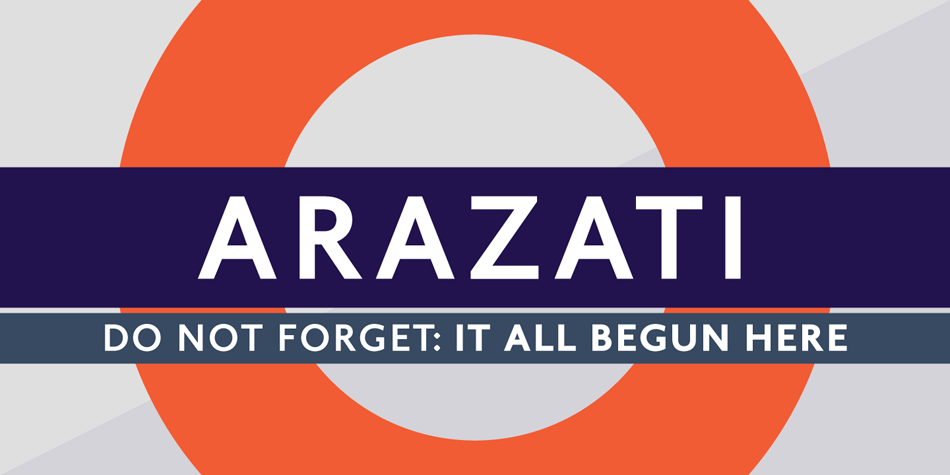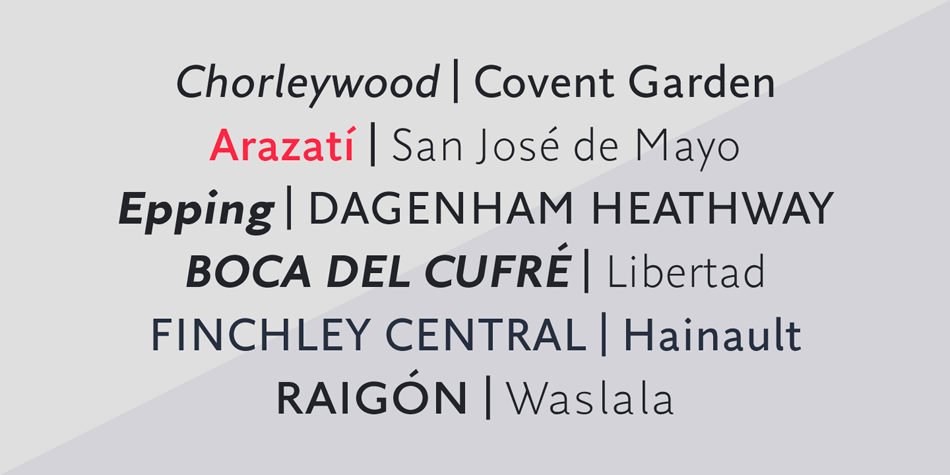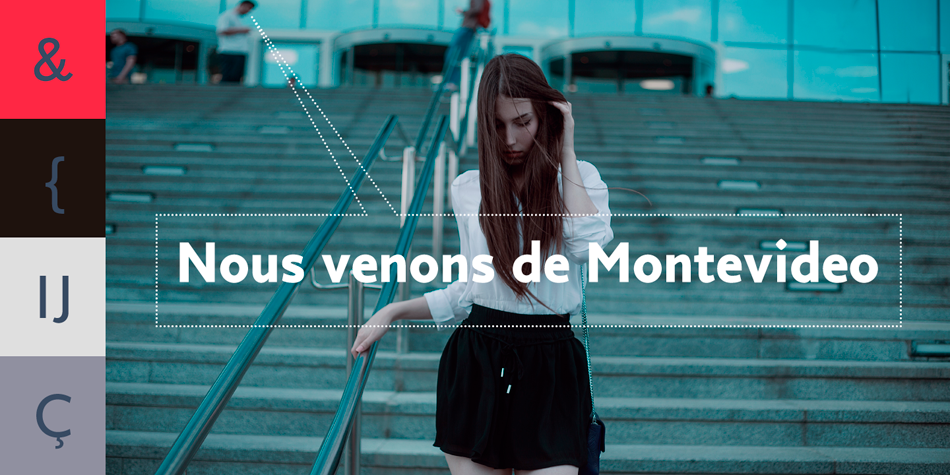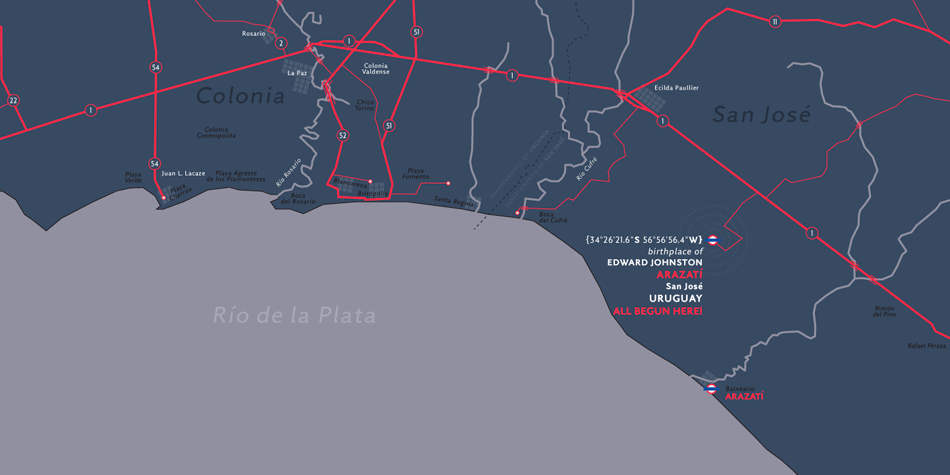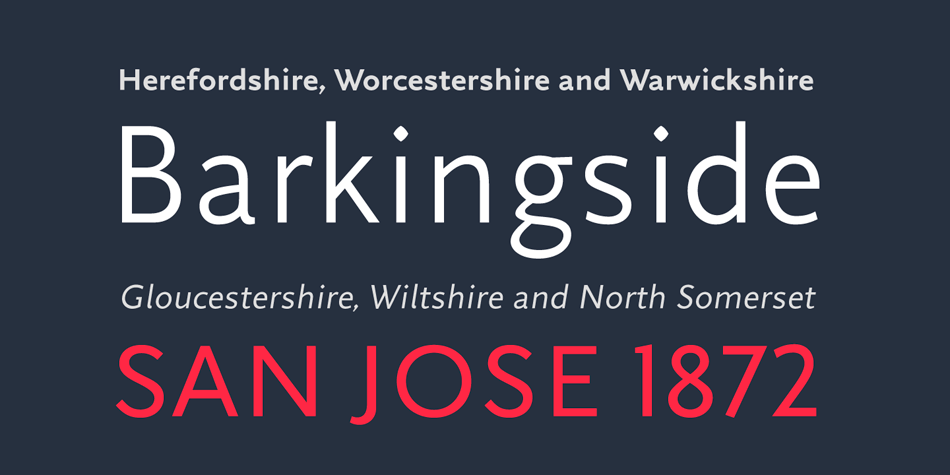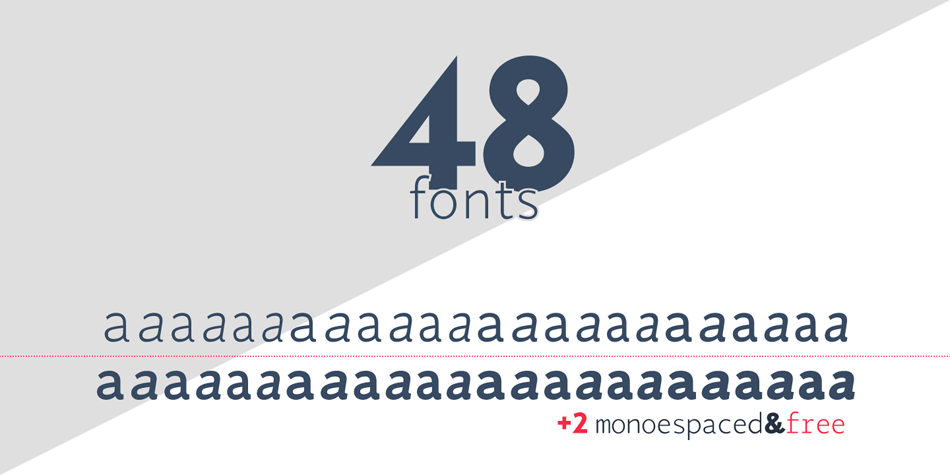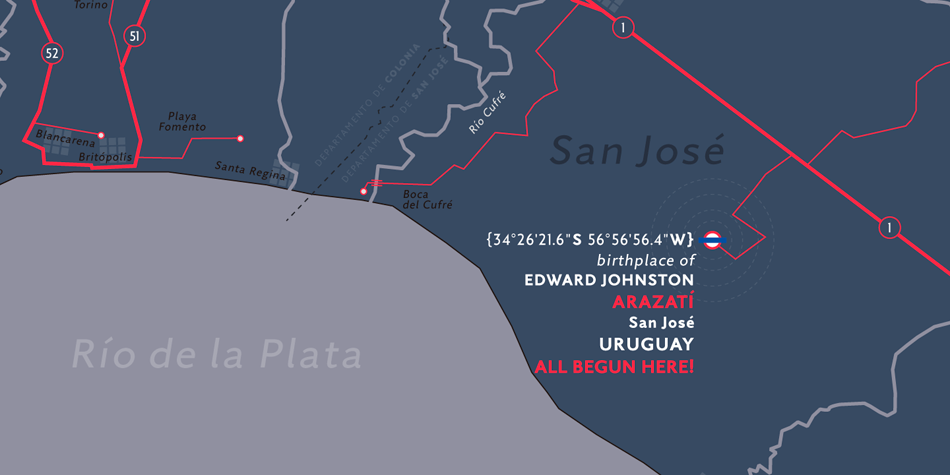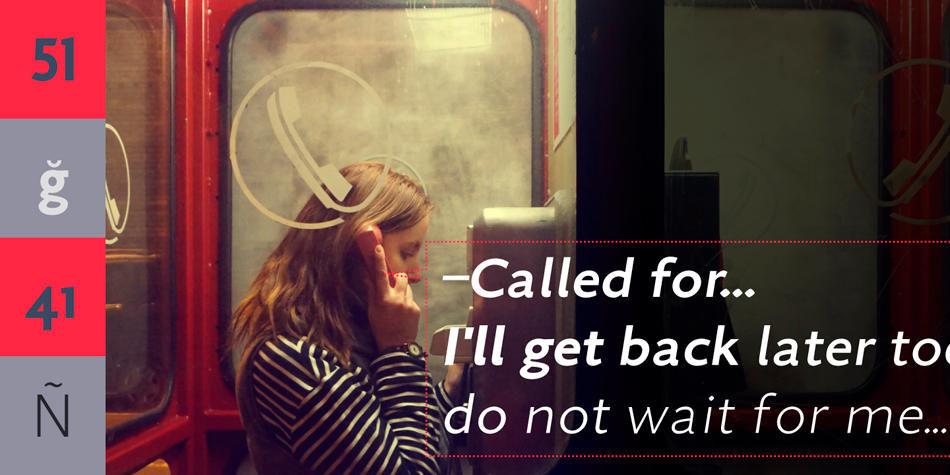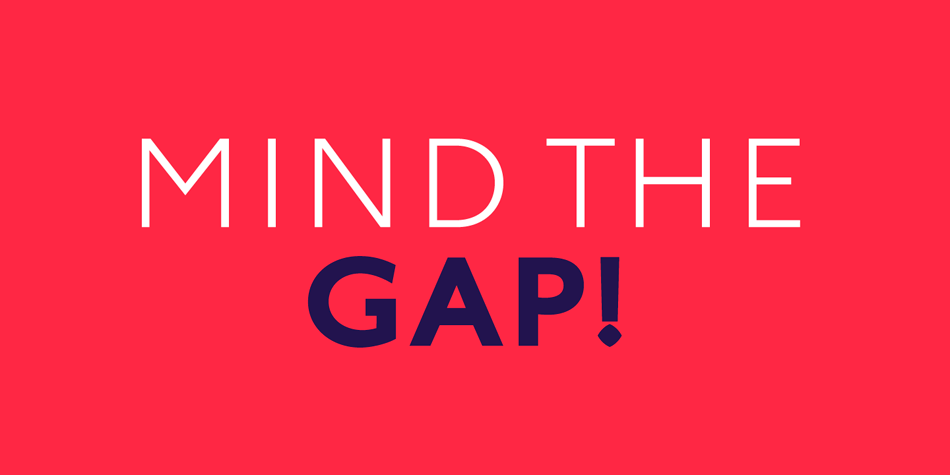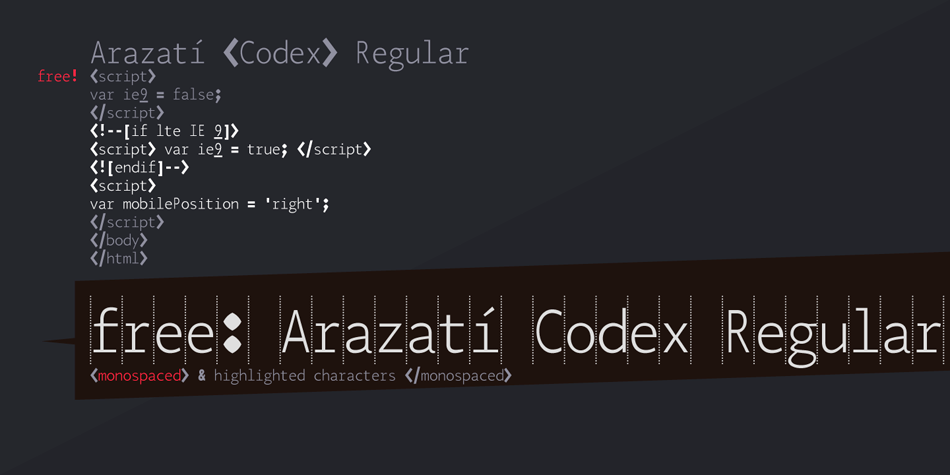
Designed by Vicente Lamónaca, Arazatí is a sans serif font family. This typeface has fifty styles and was published by TipoType.
Arazatí was inspired by Edward Johnston’s typefaces, although its design is not based on a literal reconstruction. It has 48 variants of 422 gliphs each. In addition, it offers two monospaced variants for free. Arazatí is the name of the place where Johnston was born in 1872, located in San José, Uruguay. This typeface is a tribute to his birthplace.